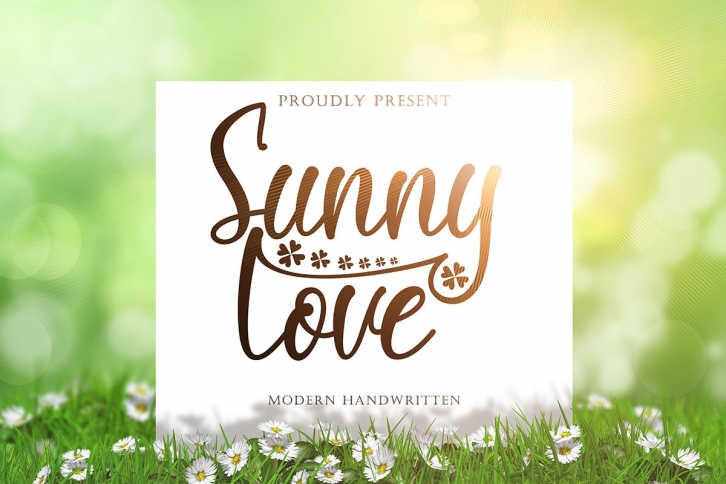
Sunny Love is a great font that was designed by yogaletter6. Imagine the amount of combinations you can create using this font! The archive is 10.58 MB and it was released on April 26, 2021. Sunny Love looks beautiful on wedding invitations, greeting cards, logos, posters, labels, t-shirt designs, logos, business cards and is perfect for use in ink or watercolor works, fashion, magazines, packaging and food menus, children's books and more!